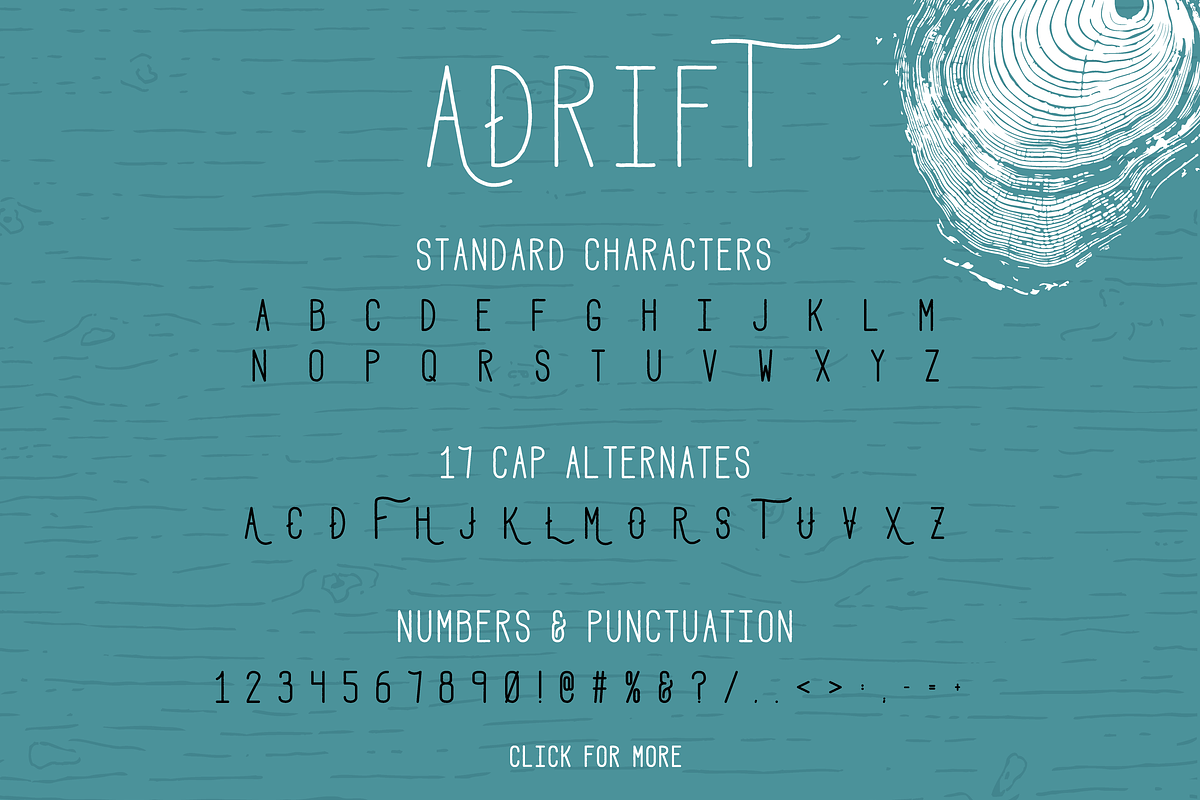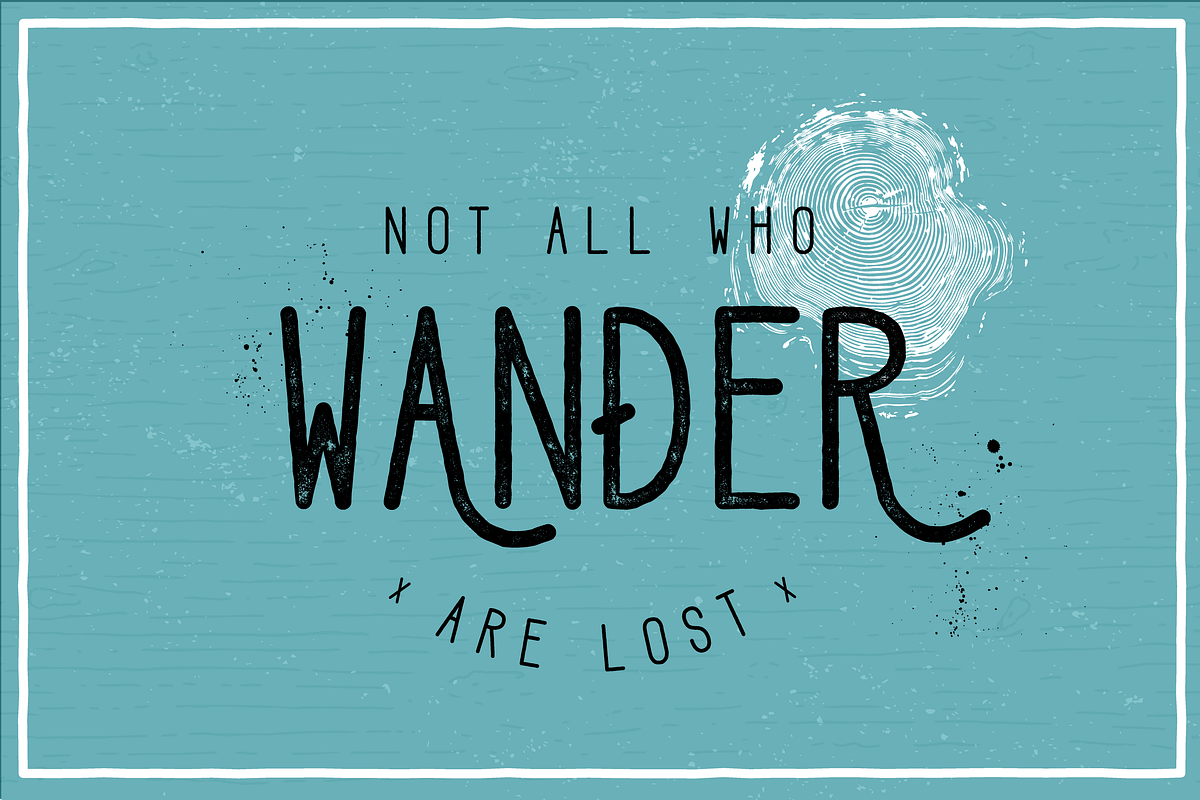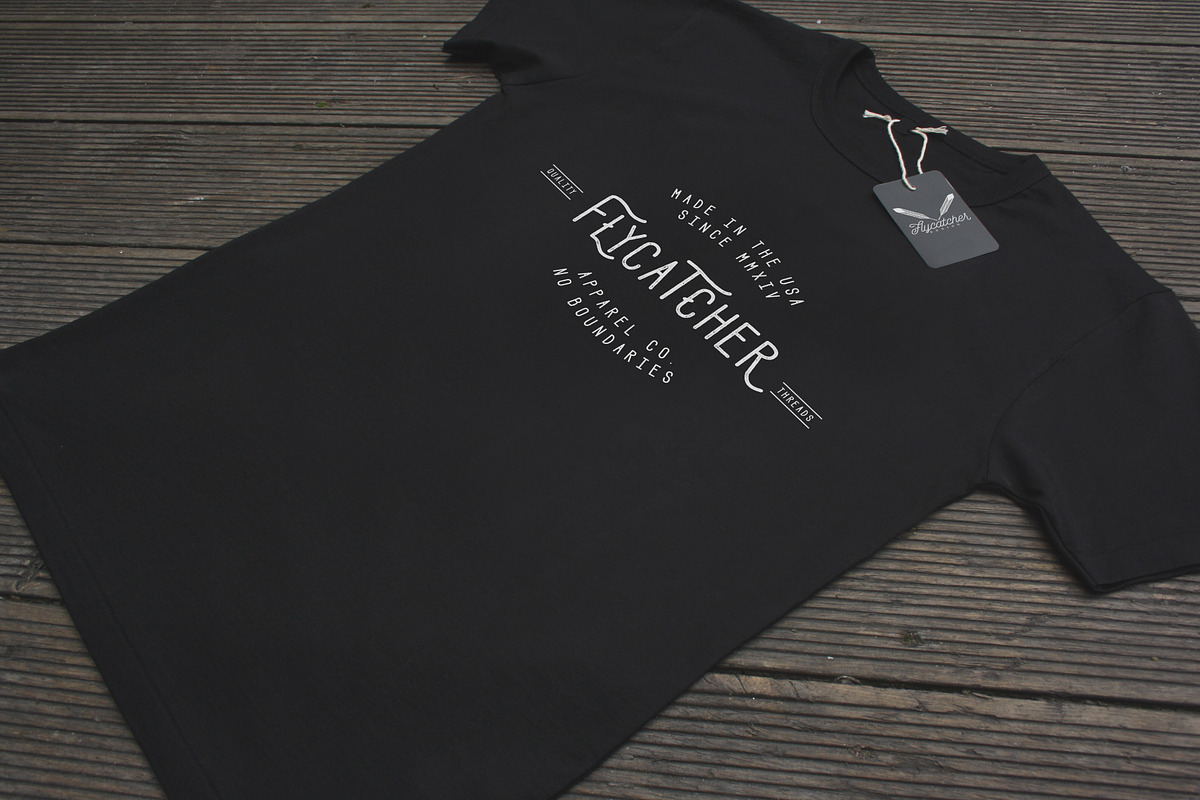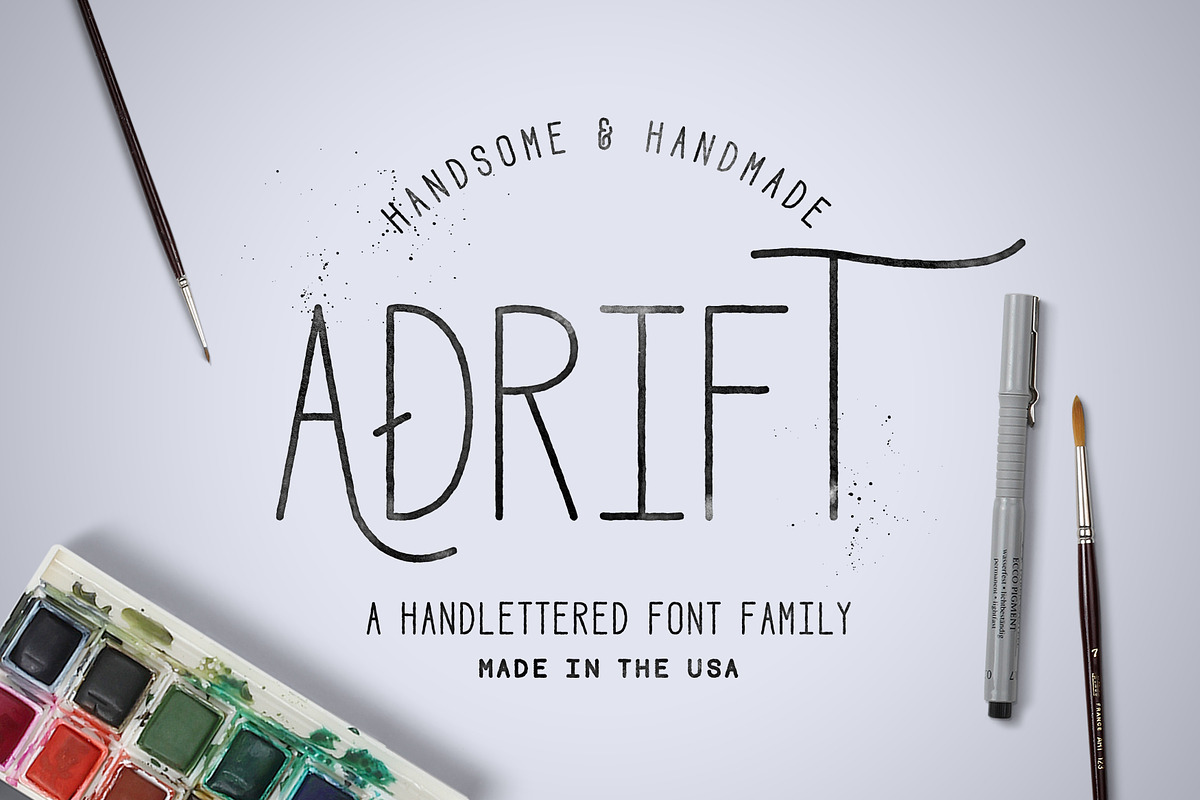
Adrift Font + Extras
Adrift Font + Extras by Flycatcher Design is a font selected for branding, posters, packaging, typography.
- It includes 4 weights (regular, medium, bold, and roughened).
- Keep it classic or add some flair to your project with one of the 17 alternate letters included!
- It includes 4 weights (regular, medium, bold, and roughened).
- Keep it classic or add some flair to your project with one of the 17 alternate letters included!
Why Adrift Font + Extras is worth a look
Adrift Font + Extras by Flycatcher Design fits naturally into Branding, posters, packaging, typography.